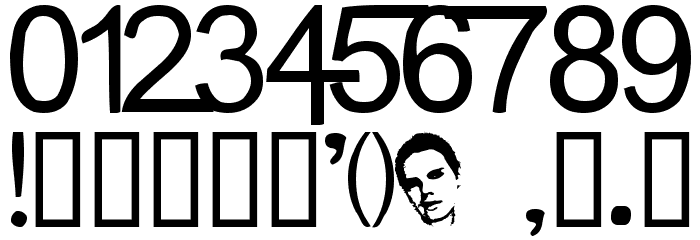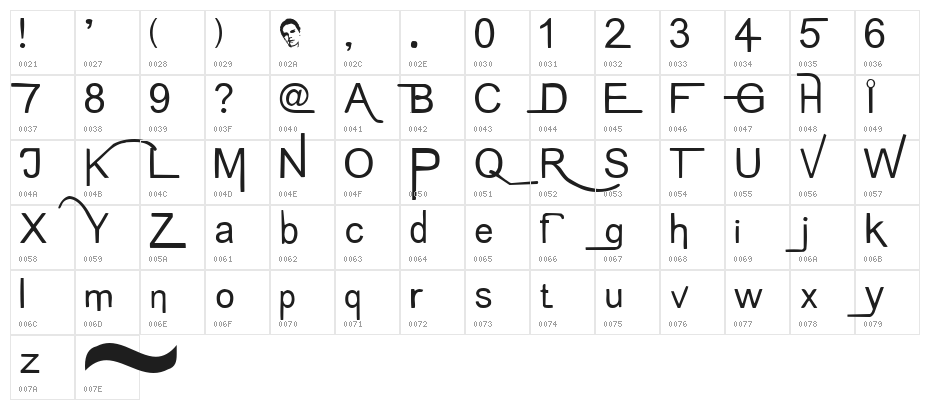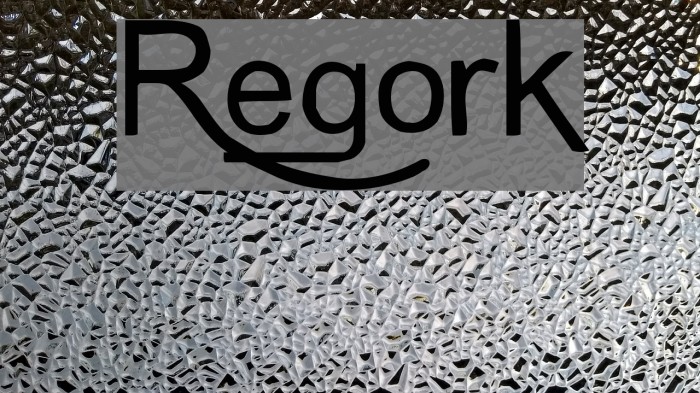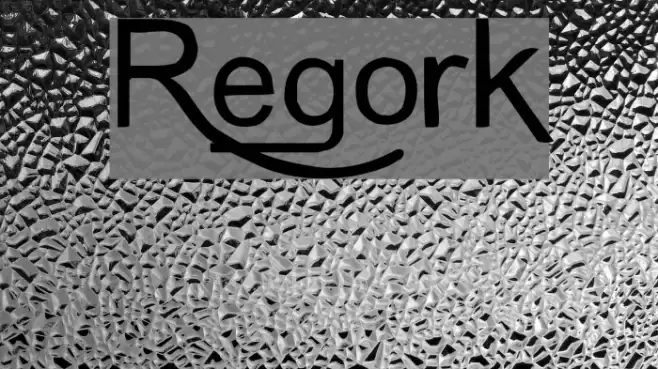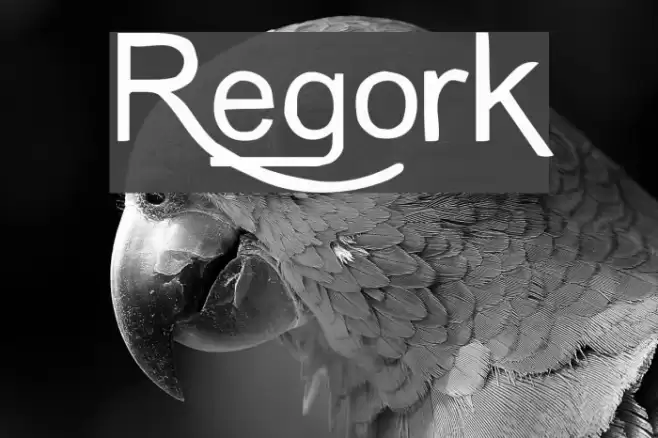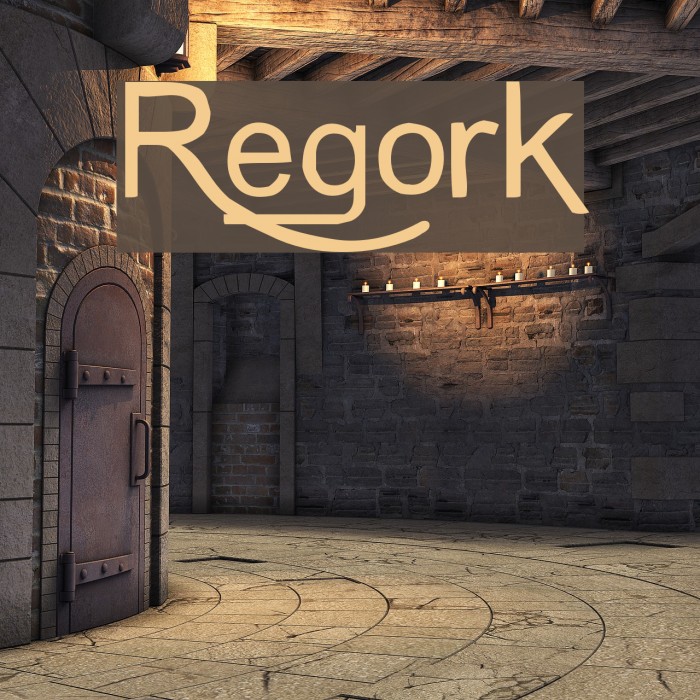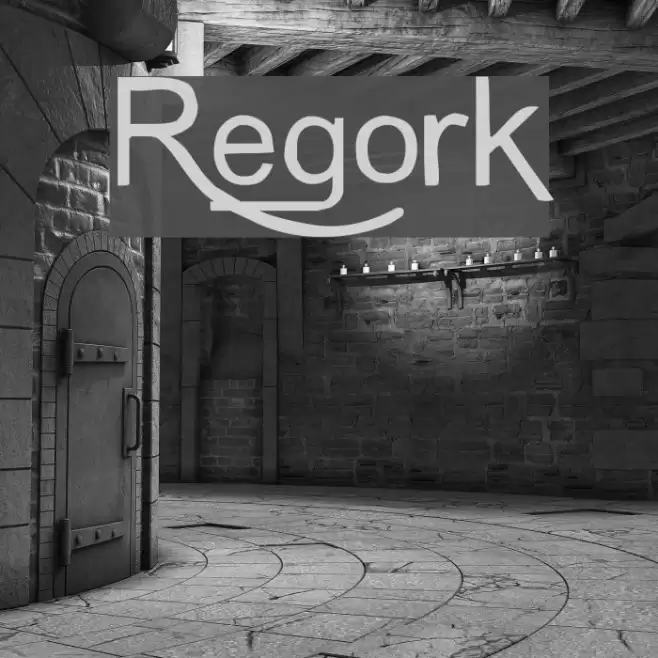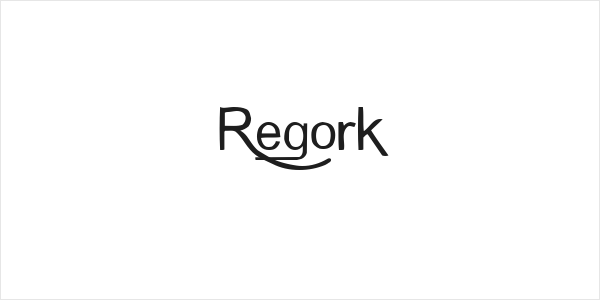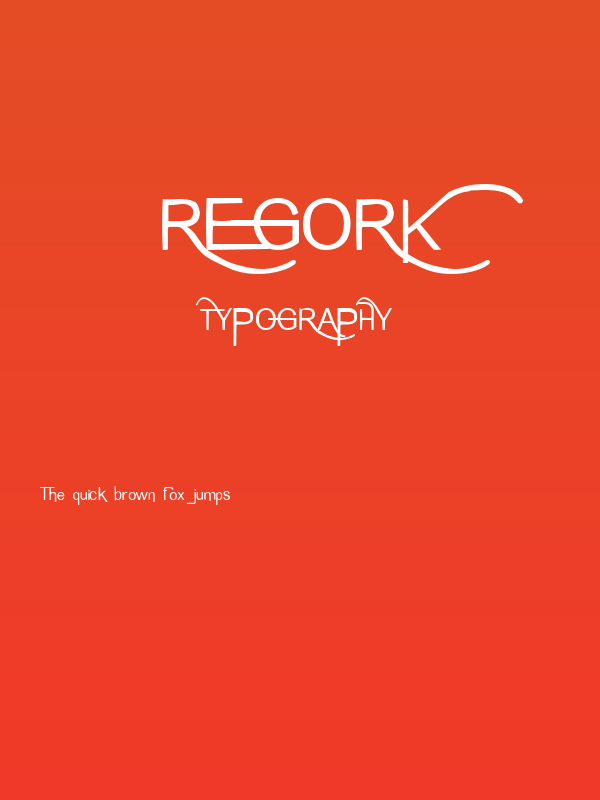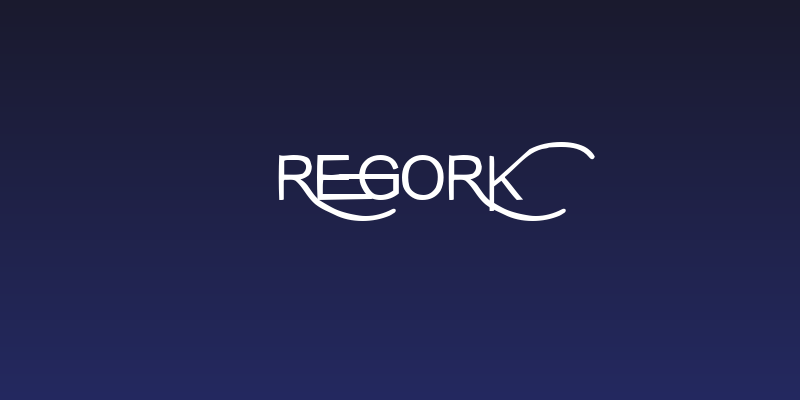
Regork Font
Regork Description
This font presents a unique blend of modern and decorative elements, characterized by its distinctive geometric shapes and playful curves. The uppercase letters feature bold, angular lines with occasional flourishes, such as the extended crossbars on the 'A' and 'H'. The lowercase letters maintain a more uniform appearance, with rounded edges that add a touch of softness. Numbers are bold and clear, ensuring readability, while special characters are creatively designed, adding a whimsical touch. The overall style is both contemporary and artistic, making it suitable for eye-catching designs.